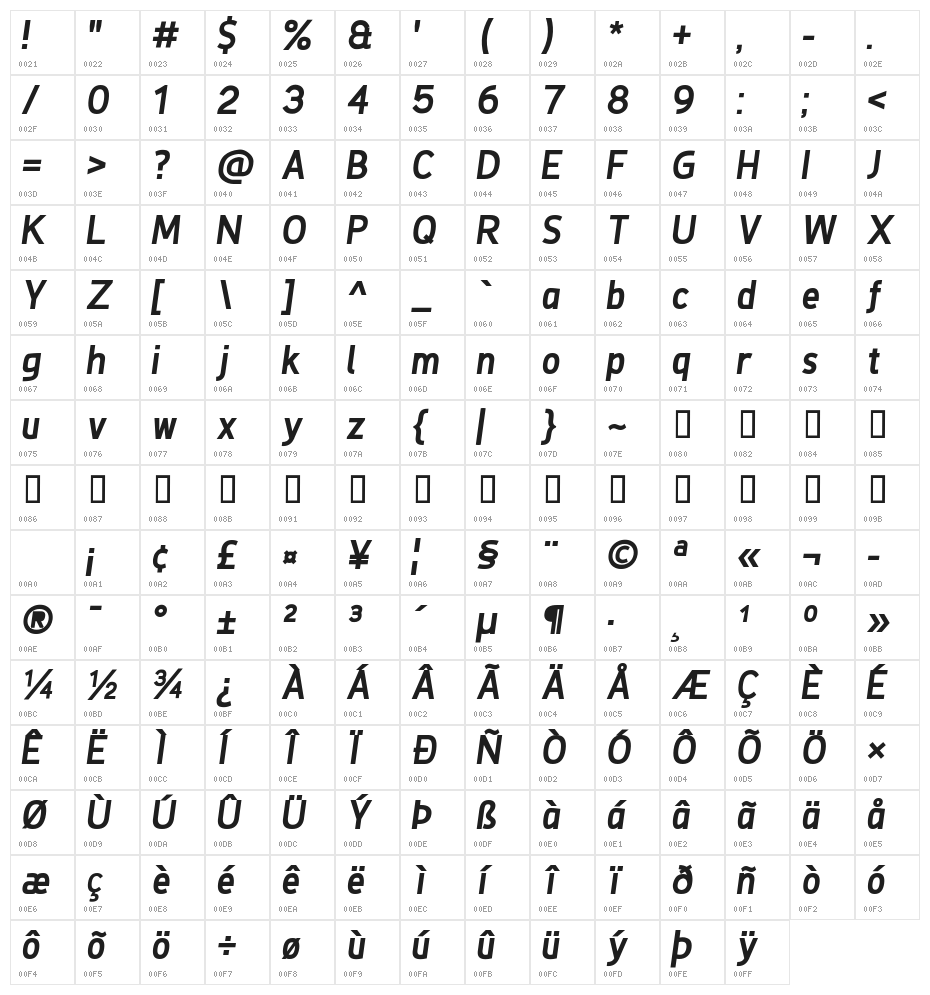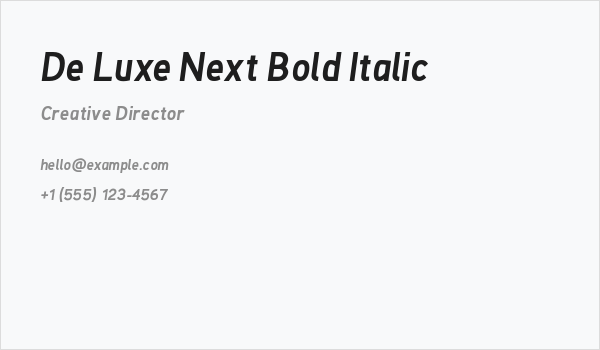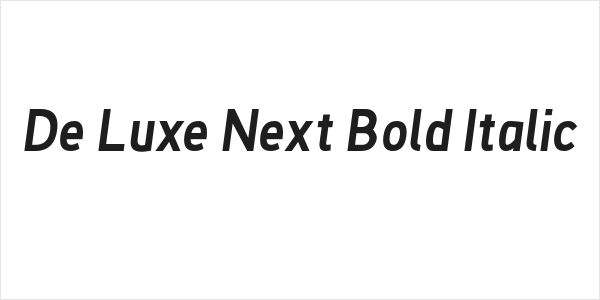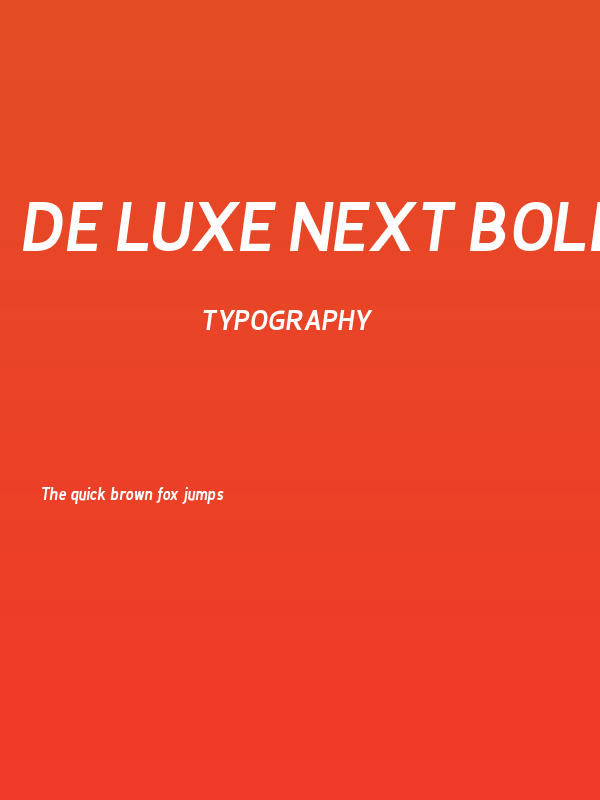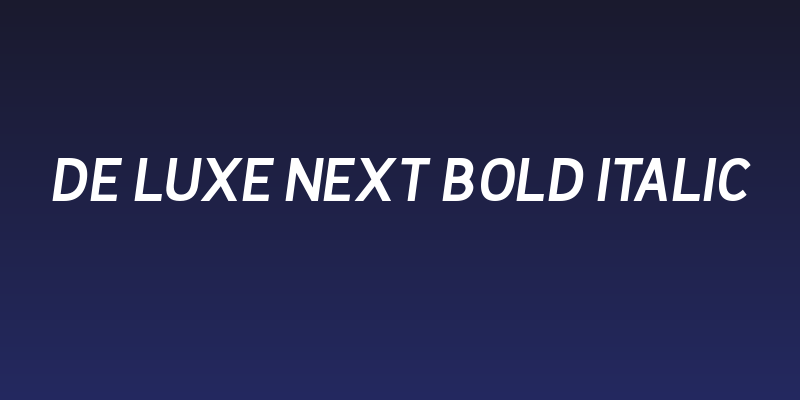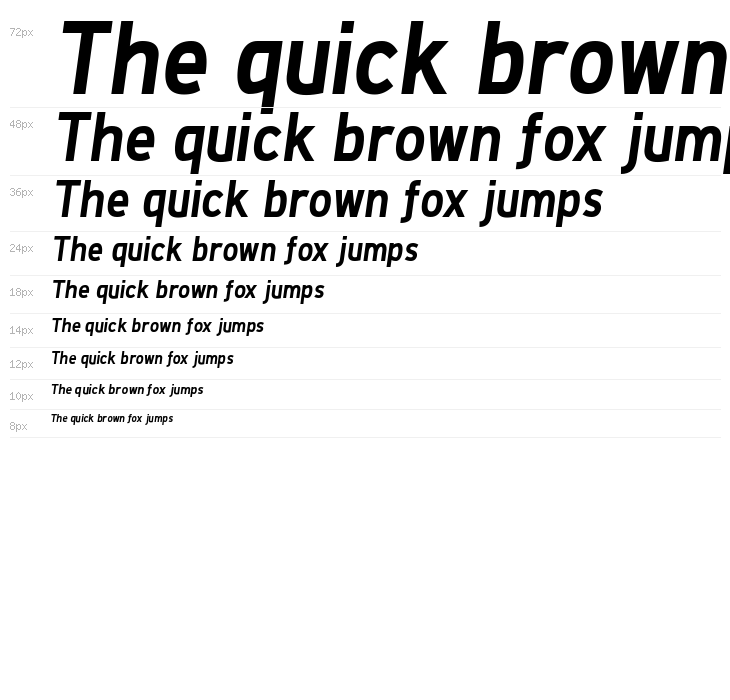
De Luxe Next Bold Italic Font
De Luxe Next Bold Italic Description
This font exhibits a bold and italicized style, characterized by its strong, slanted letterforms that convey a sense of dynamism and modernity. The uppercase and lowercase letters maintain a consistent weight, providing a uniform appearance across the alphabet. The numerals are clear and distinct, ensuring readability. Special characters are well-defined, adding versatility to the font's application. The overall design is sleek and contemporary, making it suitable for a variety of digital and print media.
| Use Case | Headlines, Logos, Advertising |
| Proposed Projects | Ideal for branding, advertising, and editorial design projects where a modern and bold statement is desired. |